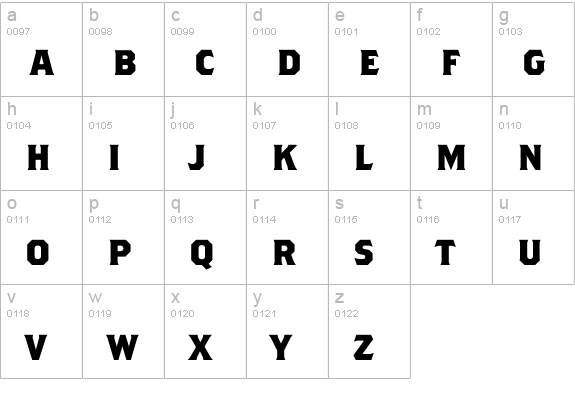
Brothers-Bold is a strong, high-contrast variant in the Brothers typeface family \xE2\x80\x94 well suited to headlines, attention-grabbing titles, and strong calls-to-action.
Brothers-Bold font is a modern and versatile typeface that exudes confidence and strength. With its bold and striking appearance, this font is perfect for making a statement in any design project. The sharp edges and clean lines give Brothers-Bold a bold and powerful presence, making it ideal for headlines, logos, and branding materials. What sets Brothers-Bold font apart is not only its unique design, but also the fact that it is available for free download at FontsMarket.com. This means that you can easily access this eye-catching font and incorporate it into your projects without any cost. Whether you're working on a poster, website, or any other creative endeavor, Brothers-Bold font is sure to make a lasting impression. Download it today and unleash its bold potential in your designs!